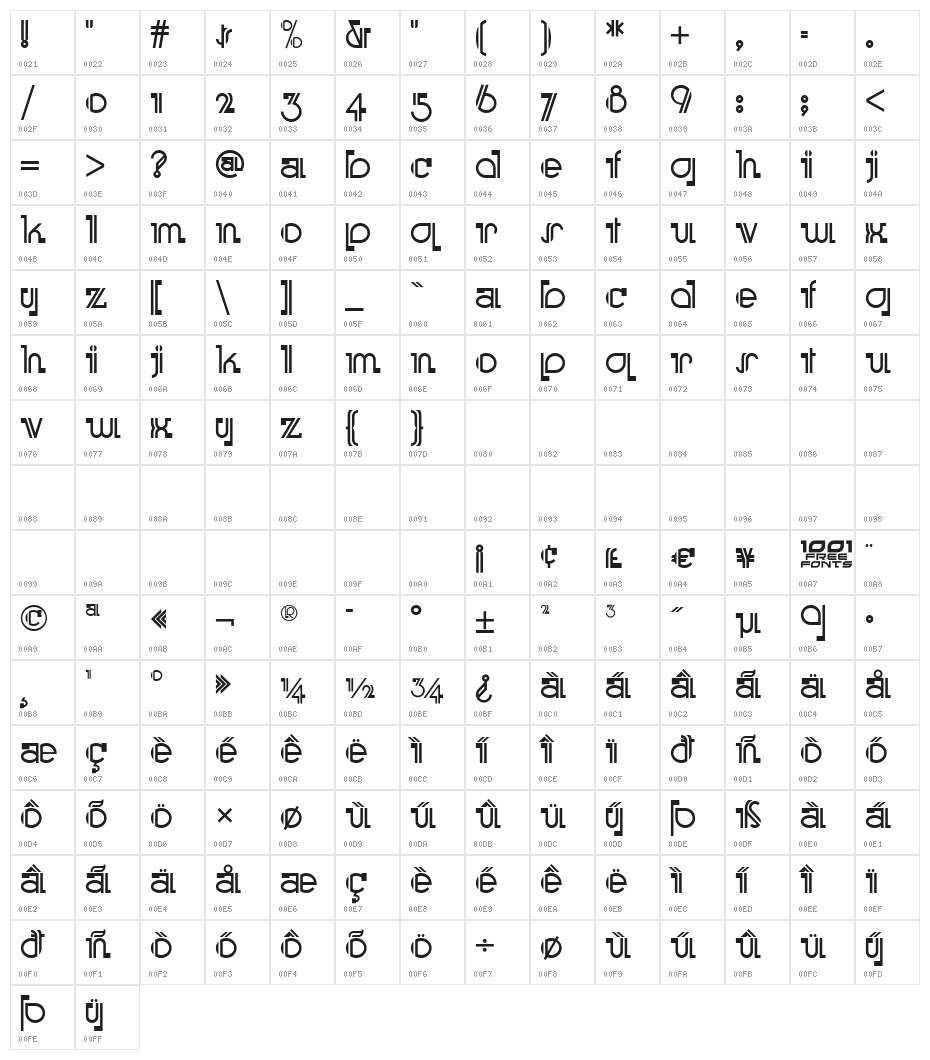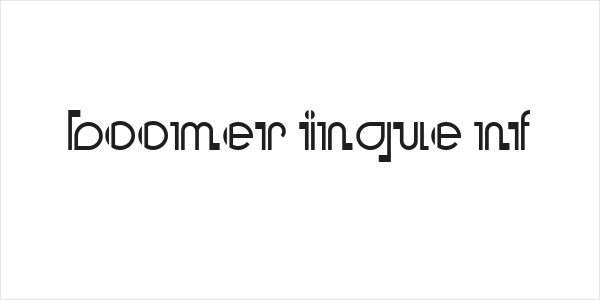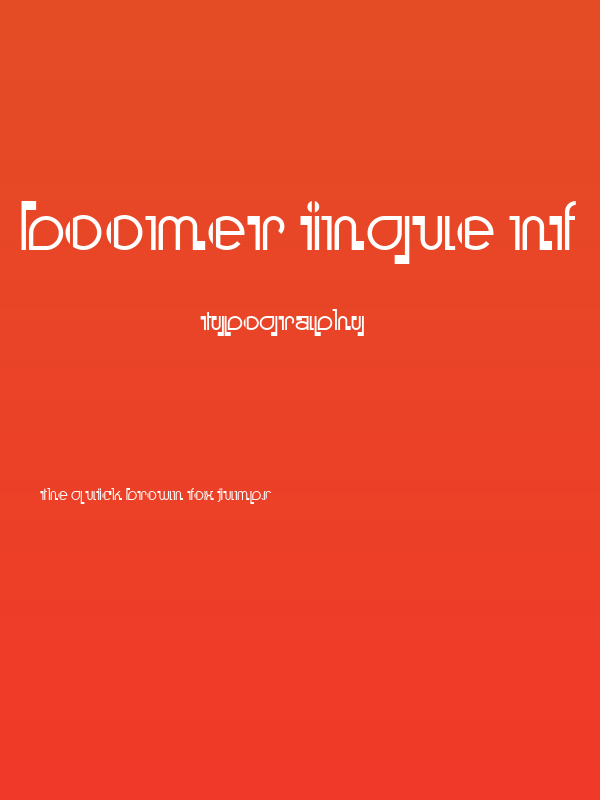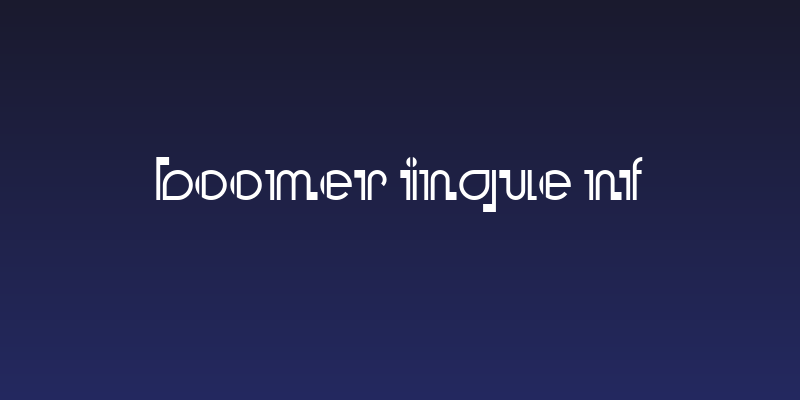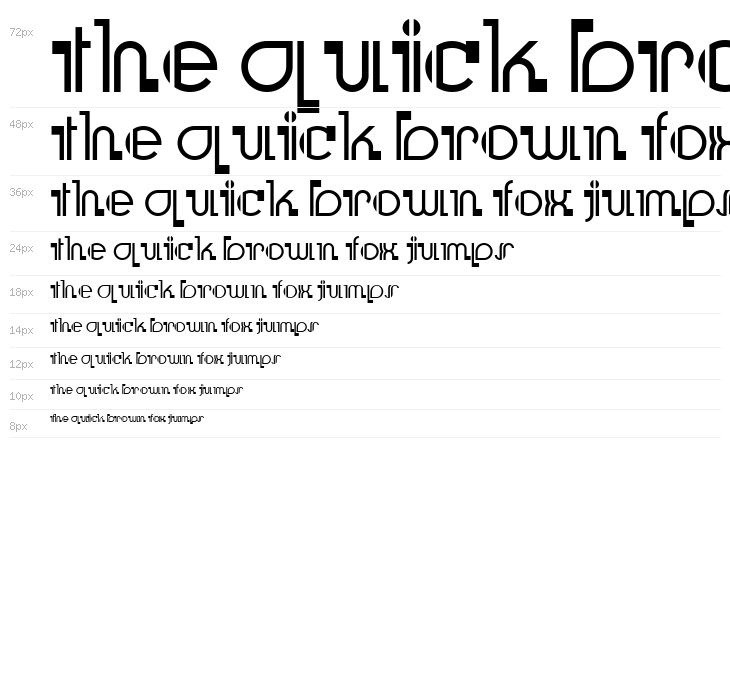
Boomer Ingue NF Font
Boomer Ingue NF Description
This font features a bold and geometric design with a modern twist. Each character is crafted with sharp angles and unique cutouts, creating a striking visual impact. The uppercase and lowercase letters maintain a consistent style, with a playful yet structured appearance. The numerals and special characters follow the same design principles, ensuring uniformity across all glyphs. This font's distinct style makes it ideal for projects that require a contemporary and artistic touch.
| Proposed Projects | Ideal for modern branding, posters, album covers, and digital artwork. |